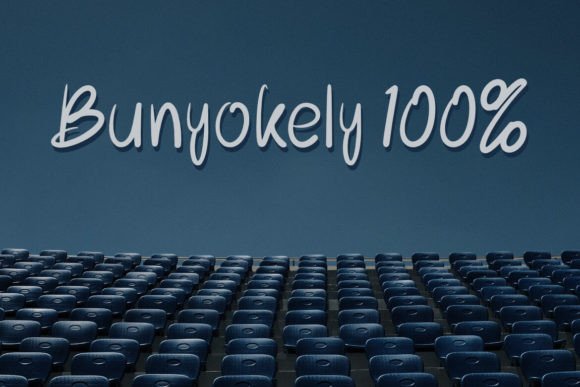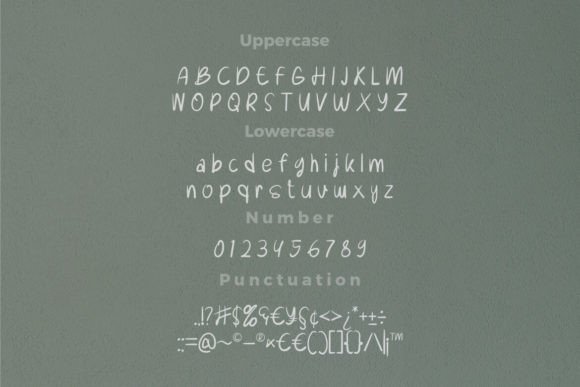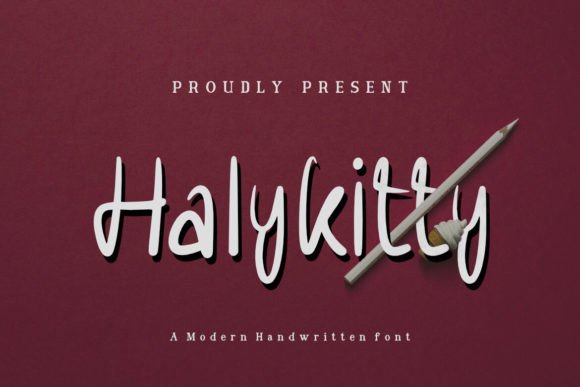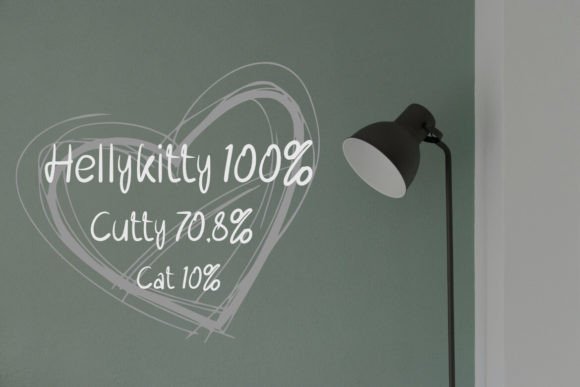
Introducing Halykitty Font: Elevate Your Designs with a Touch of Handwritten Elegance
In the world of typography, fonts play a crucial role in conveying messages, expressing emotions, and creating lasting impressions. For designers, crafters, and creative enthusiasts, finding the perfect font can be a daunting task. However, if you’re looking for a font that combines elegance, playfulness, and versatility, look no further than the Halykitty Handwritten Font. Inspired by quote typography, this premium font is designed to take your designs to the next level.
The Inspiration Behind Halykitty Font
The Halykitty Font draws inspiration from the art of quote typography, where words become a work of art. The creator of this font aimed to capture the essence of handwritten typography, infusing it with a modern twist. The result is a font that exudes warmth, friendliness, and approachability. Whether you’re designing flyers, posters, or social media graphics, Halykitty Font is the perfect choice.
Key Features of Halykitty Handwritten Font
- High Premium Quality: Halykitty Font is crafted with meticulous attention to detail, ensuring a high level of quality that rivals professional fonts.
- Versatility: This font is suitable for a wide range of design applications, including flyers, quotes, posters, banners, packaging, merchandise, logotypes, and more.
- Handwritten Elegance: Halykitty Font boasts a unique, handwritten style that adds a touch of personality to your designs.
- Ease of Use: This font is easy to read and works well in both digital and print formats.
Design Possibilities with Halykitty Font
With Halykitty Font, the design possibilities are endless. Here are a few ideas to get you started:
- Flyers and Brochures: Create eye-catching flyers and brochures for events, promotions, or product launches.
- Social Media Graphics: Elevate your social media presence with custom graphics, quotes, and posters.
- Packaging Design: Add a personal touch to your product packaging with Halykitty Font.
- Merchandise: Create unique and stylish merchandise, such as t-shirts, mugs, and tote bags.
- Logotypes and Branding: Use Halykitty Font to create a distinctive logo or brand identity.
Tips for Using Halykitty Font Effectively
To get the most out of Halykitty Font, here are some tips:
- Experiment with Colors: Pair Halykitty Font with a range of colors to create visually appealing designs.
- Play with Sizes: Use different font sizes to create visual hierarchy and emphasis.
- Add Texture and Patterns: Combine Halykitty Font with textures and patterns to add depth and interest.
| Font Name | Halykitty Font |
| Author | Bayuktx |
In conclusion, the Halykitty Handwritten Font is a versatile and elegant font that can elevate your designs to new heights. With its high premium quality, handwritten elegance, and ease of use, this font is perfect for designers, crafters, and creative enthusiasts. Whether you’re working on a commercial project or a personal creative endeavor, Halykitty Font is sure to inspire and impress.